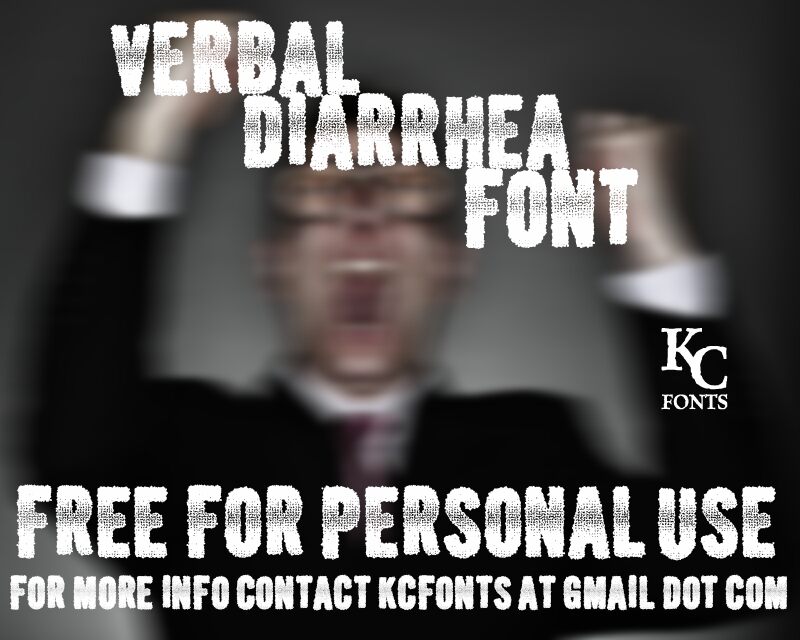
Verbal Diarrhea by Kevin Christopher of KC Fonts is a free eroded display font with tall, forceful capitals and a heavily distressed surface. The damage gathers in rough horizontal bands, shifting from dense areas to a scratched, almost shredded center. Its edges are blunt and irregular.
Music posters are its strongest setting, especially for punk, metal, or noise events. Album covers, streetwear graphics, and skate branding can use the same abrasive, photocopied texture. In each case, the striped wear turns the lettering into part of the artwork.